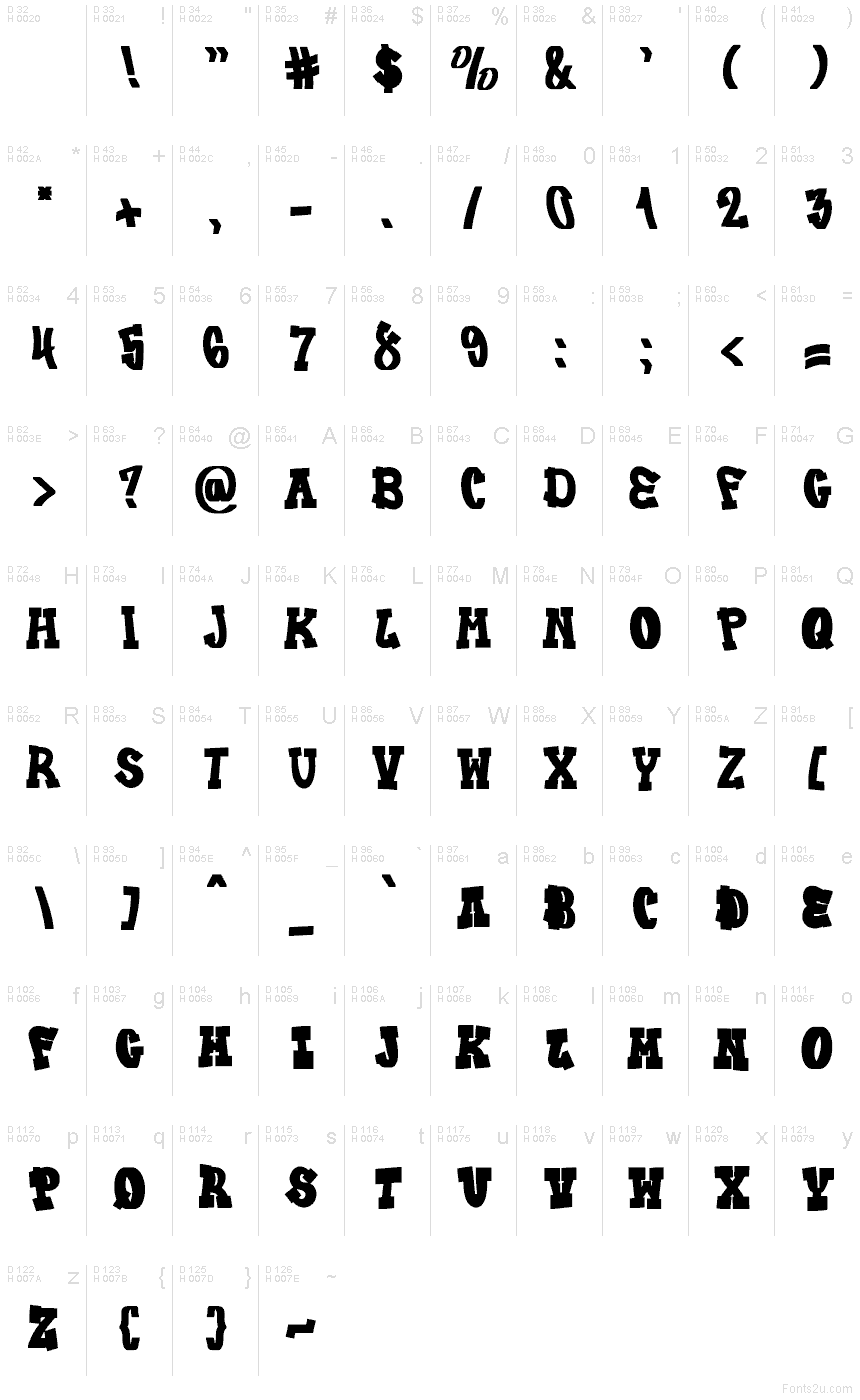
Psycho Waller font by Dhabee Studio is a free graffiti typeface. Its chunky, inky letterforms look splashed on with a fat cap-jagged edges, warped contours, and scuffed cutouts that feel ripped from a concrete wall. The rhythm is loud and bouncy, but the shapes stay legible, so you get raw energy without losing the message.
This free font shines on streetwear logos, album art, skate or punk flyers, gaming thumbnails, sticker packs, and bold packaging. Using Psycho Waller at oversized headline scale with tight tracking gives it that wall-to-poster punch. For body copy or captions, pair it with a simple geometric sans to keep the grit focused where it counts.